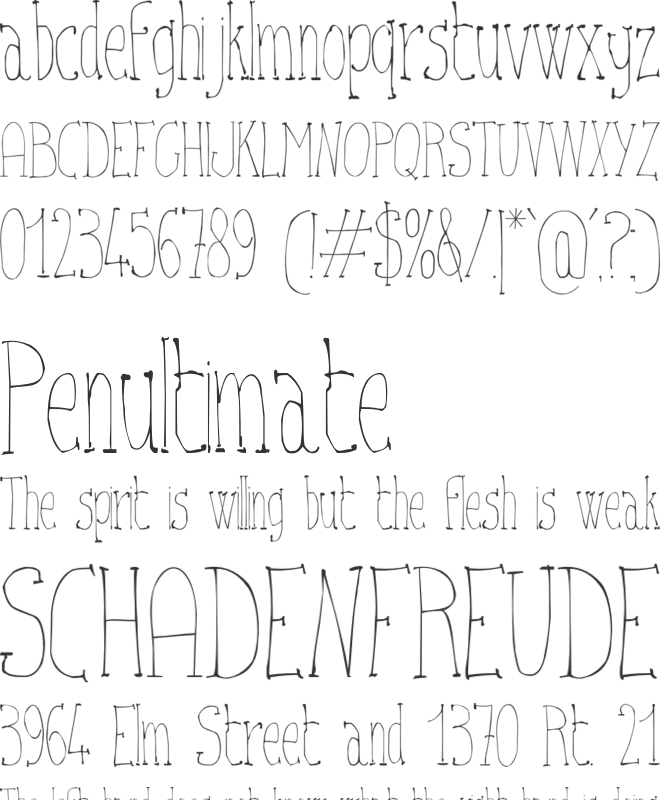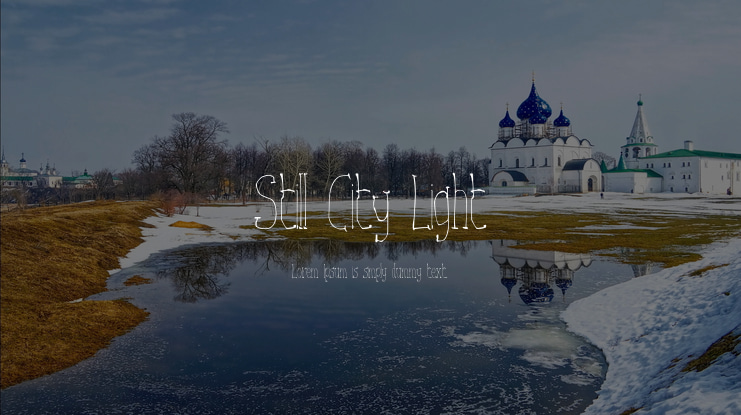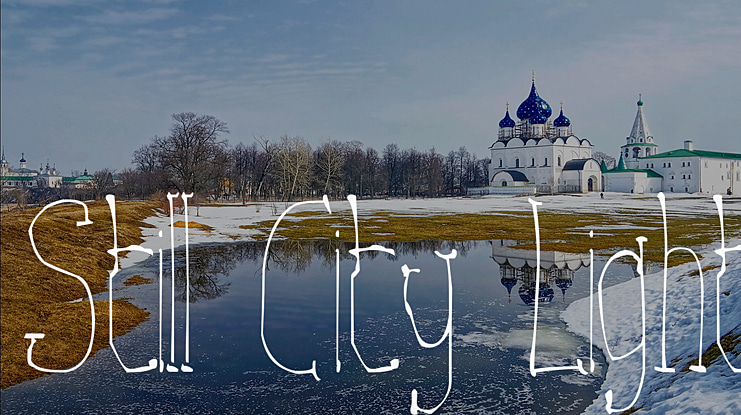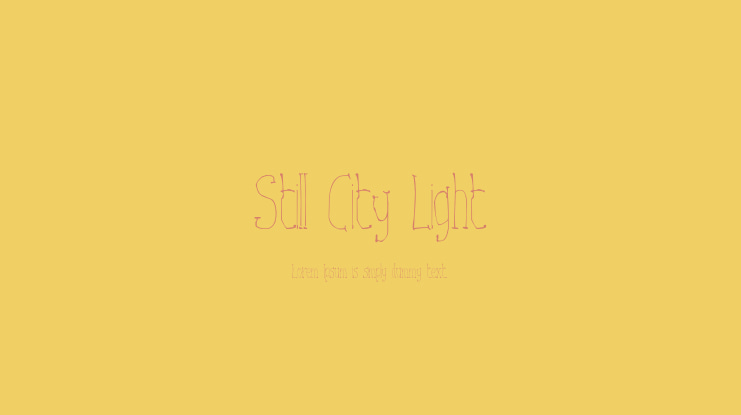
Still City Light Font Family
P.A.Vannucci
From the artistic flair dedicated to Parisian art of all times, an exclusive Open Type font available in four light-regular-bold-black formats. A modern typographic reinterpretation of Art Deco that has outlined a style defined by the avant-garde of graphic design.
Dall’estro artistico dedicato all’arte parigina d’ogni tempo, un font Open Type esclusivo disponibile in quattro formati light-regular-bold-black. Una moderna rilettura tipografica dell’Art Decò che ha delineato uno stile definito dall’avanguardia della progettazione grafica.